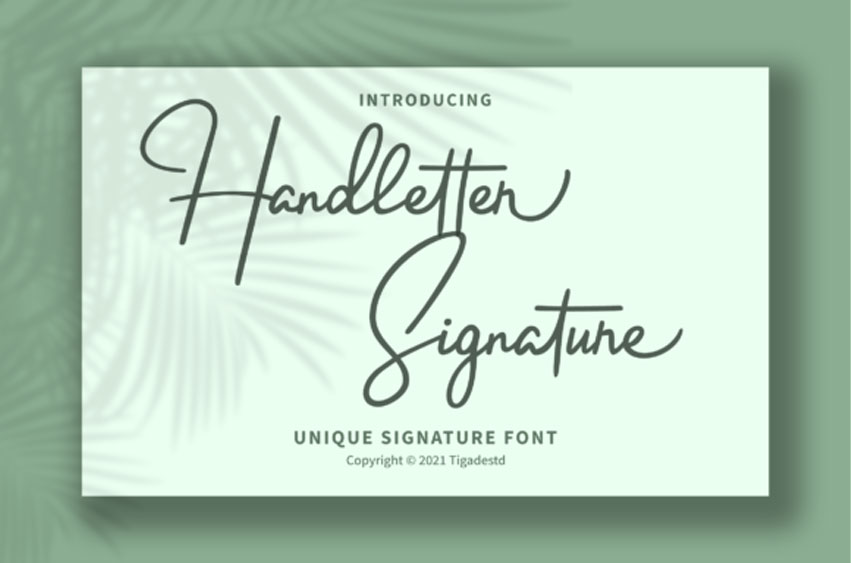
Handletter Signature Font
Handletter Signature Font is a gorgeous, elegant and unique handletter-based signature font with a modern look. Improve your designs or make it as your own signature!